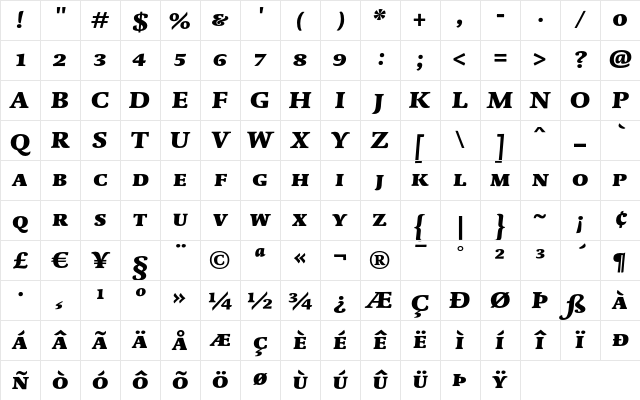
Complete DTLDorianTCaps HeavyItalic glyph index. Displaying only characters natively supported by DTLDorianTCaps HeavyItalic font.
DTLDorianTCaps is a composed and adaptable typeface that performs quietly and consistently across a wide range of design contexts. The slanted form adds forward momentum and visual energy.